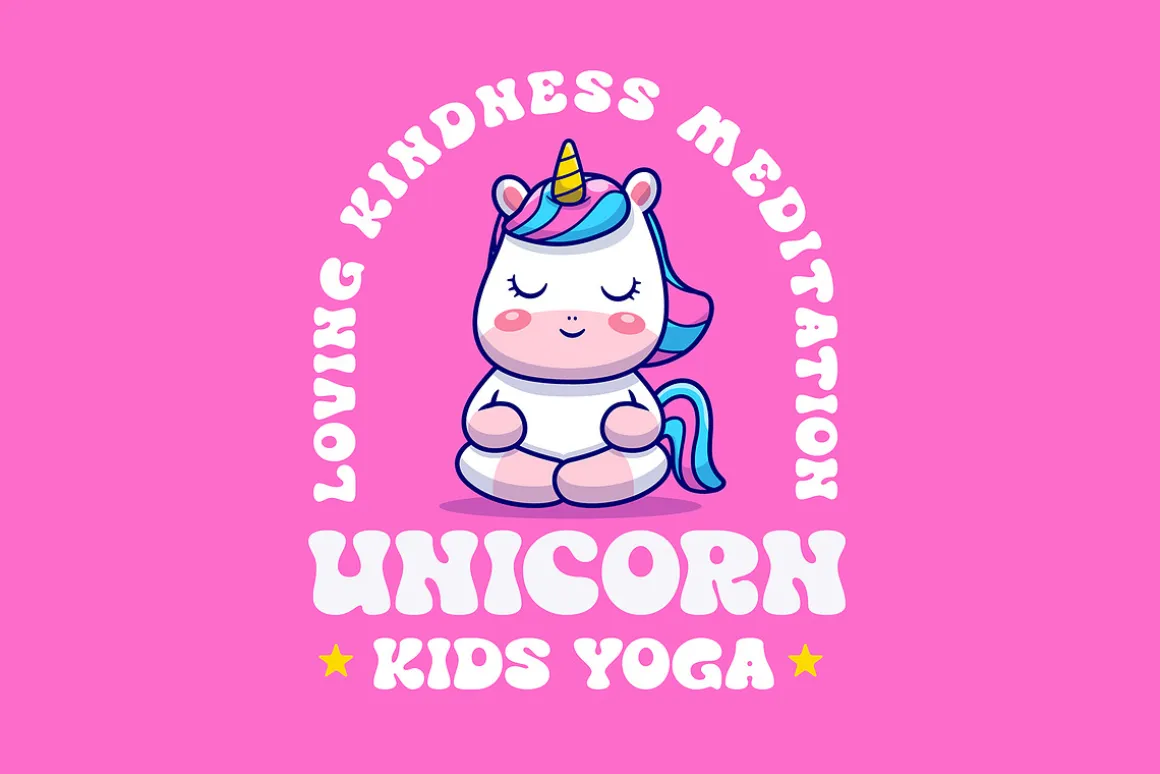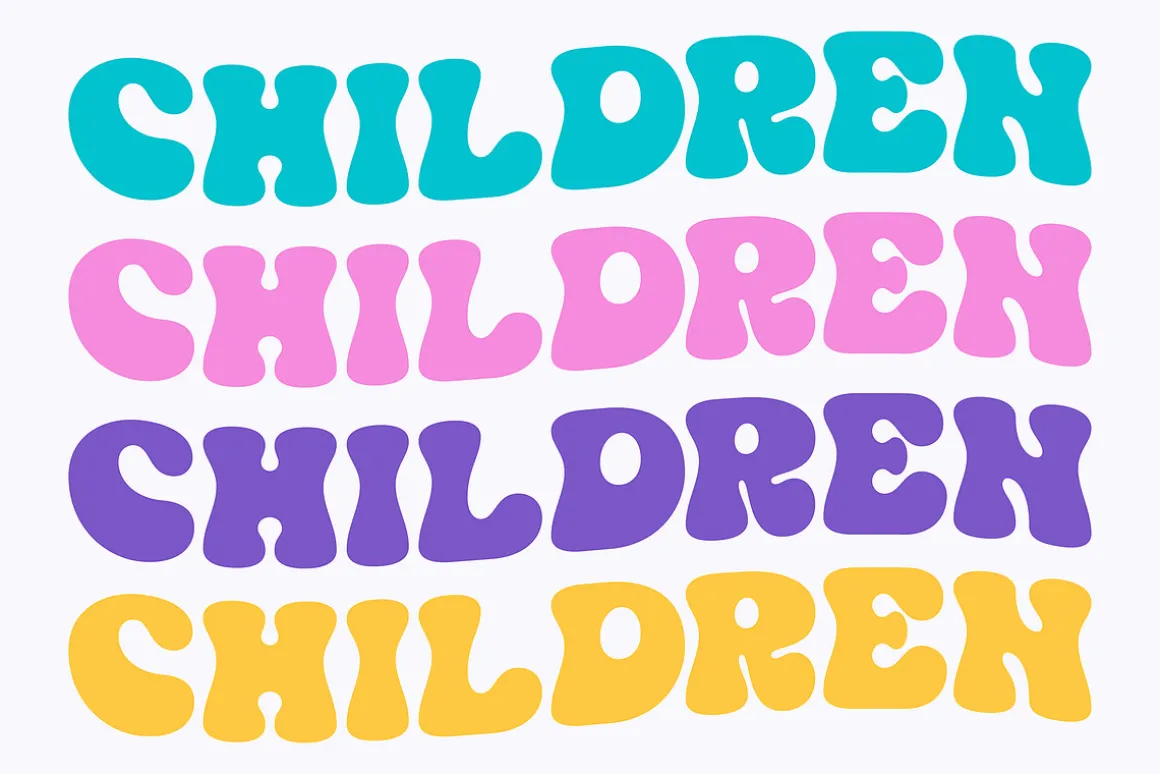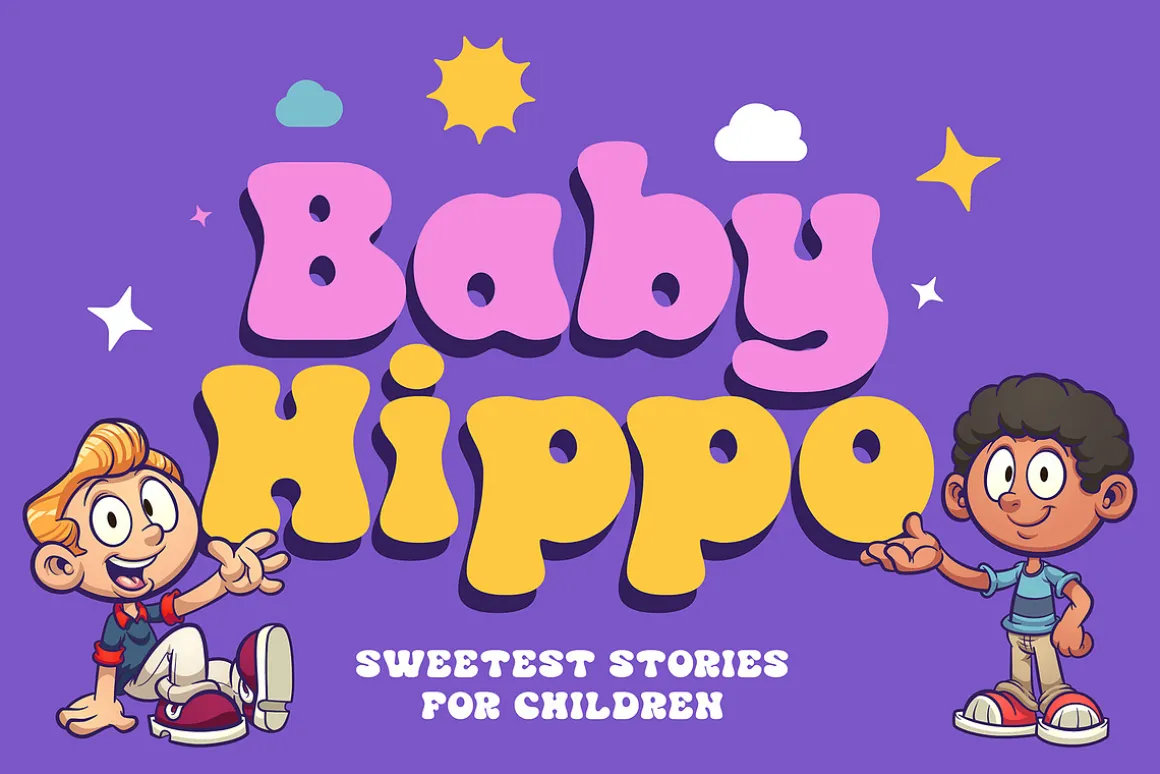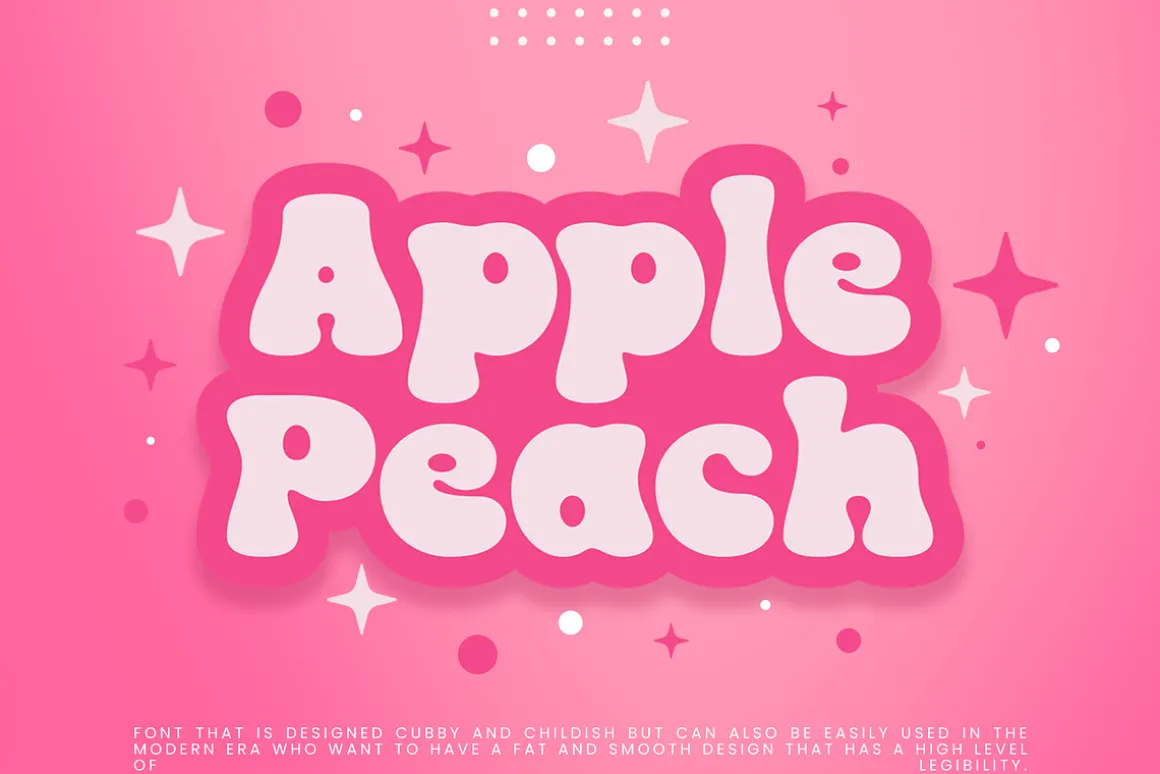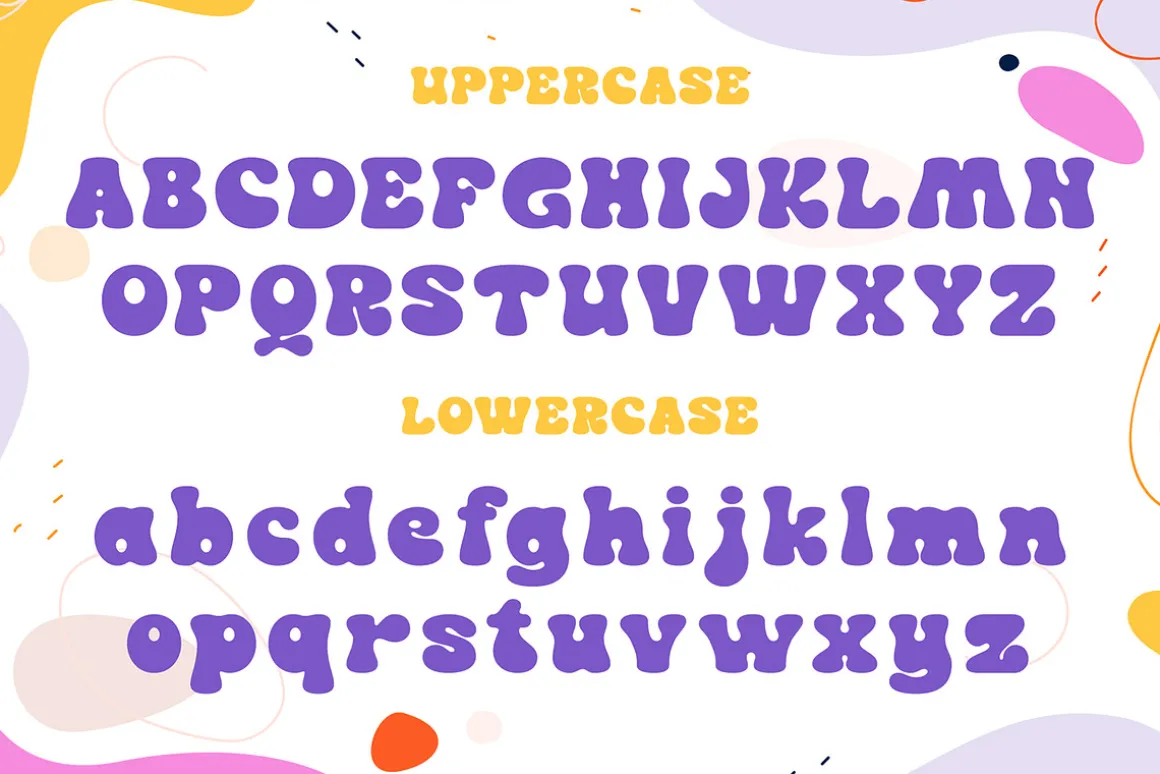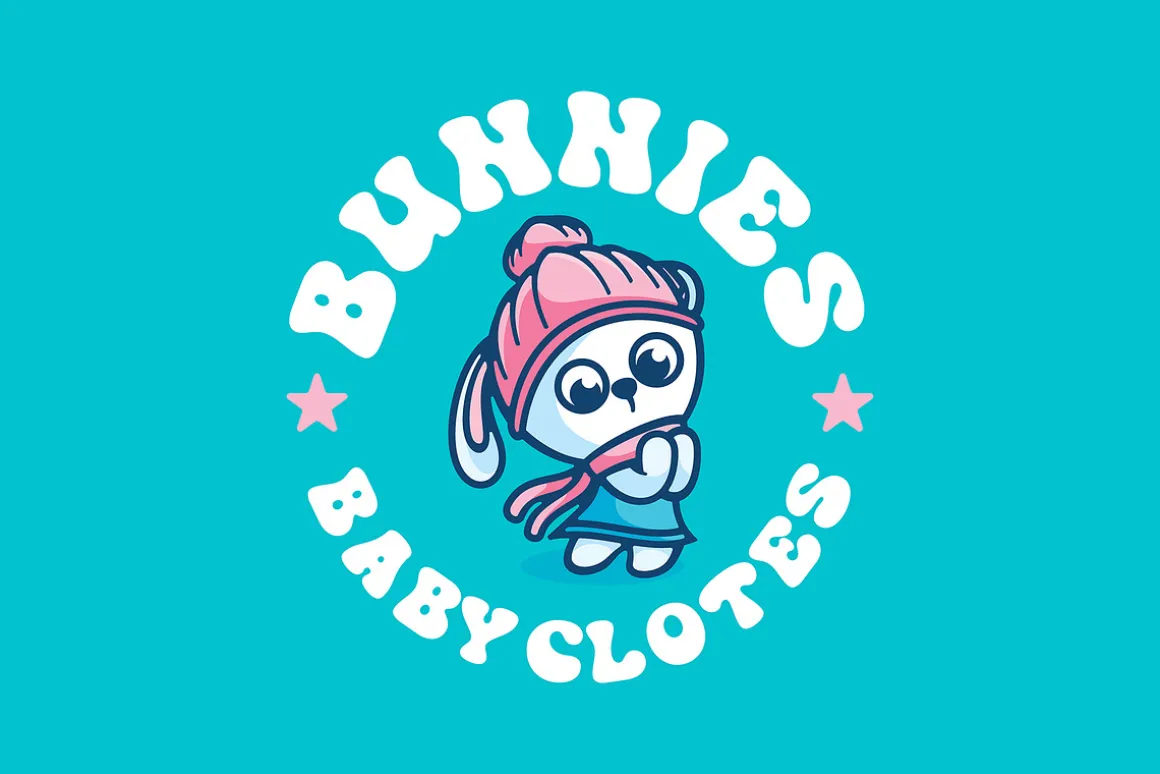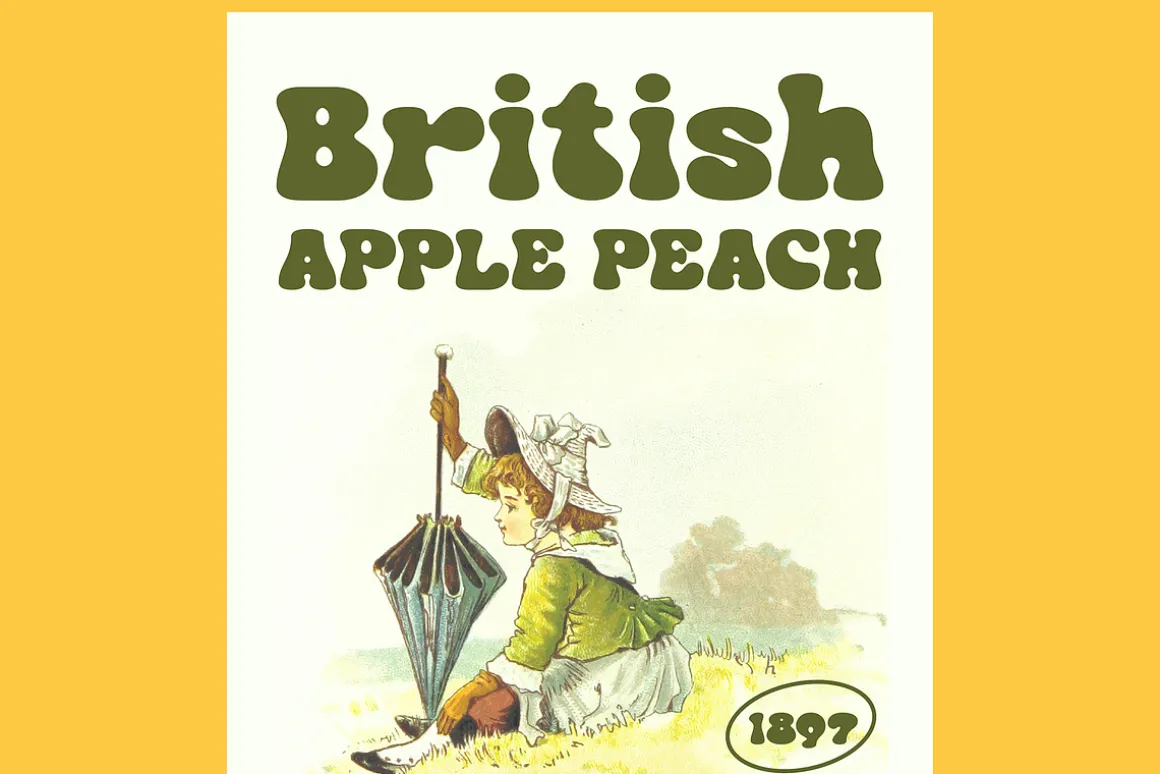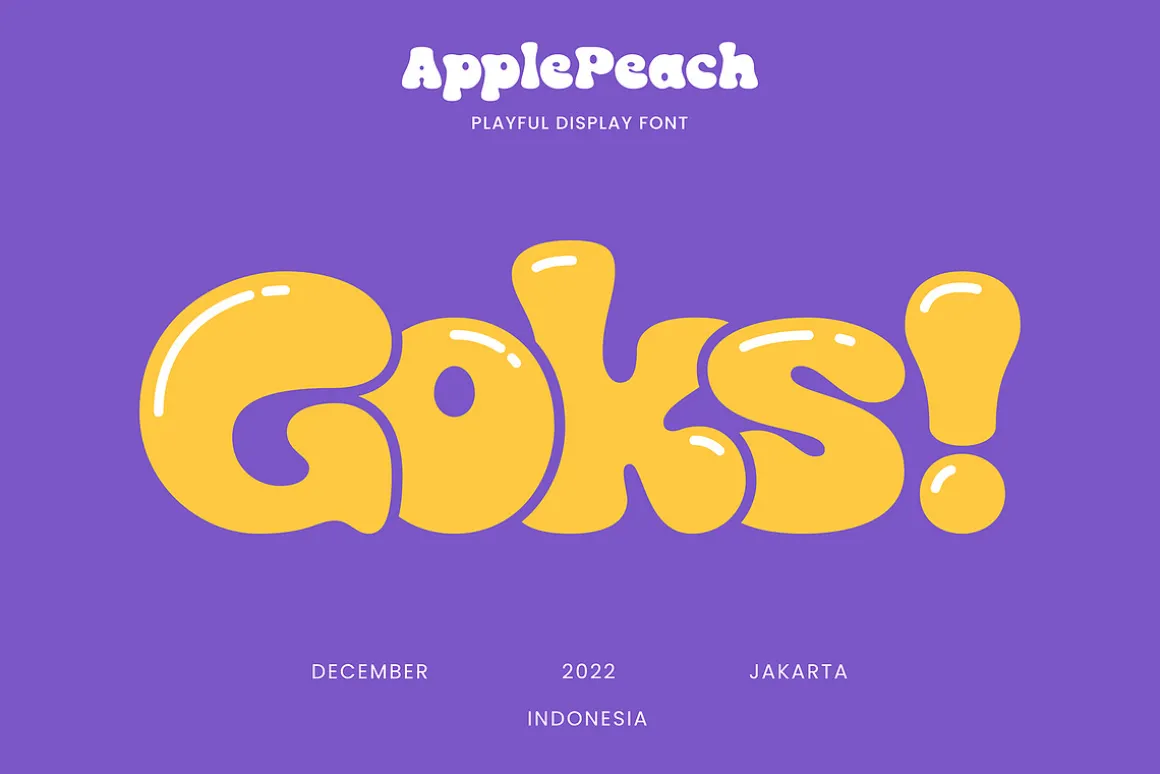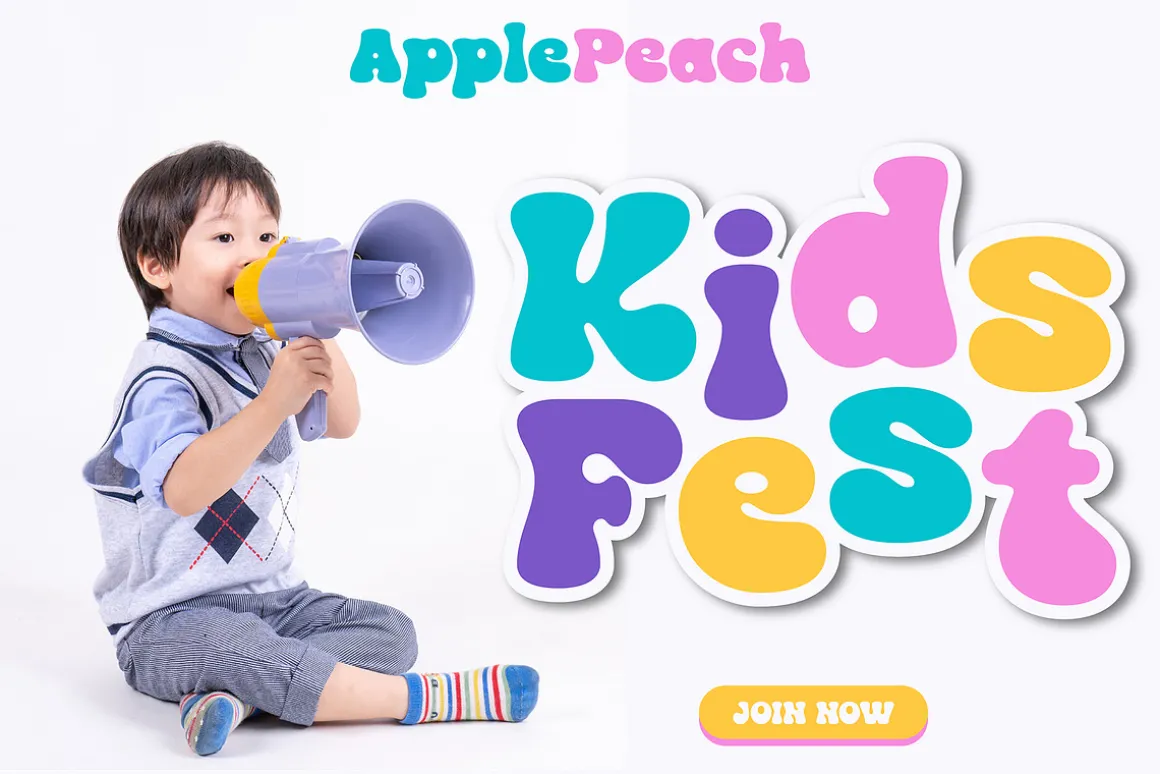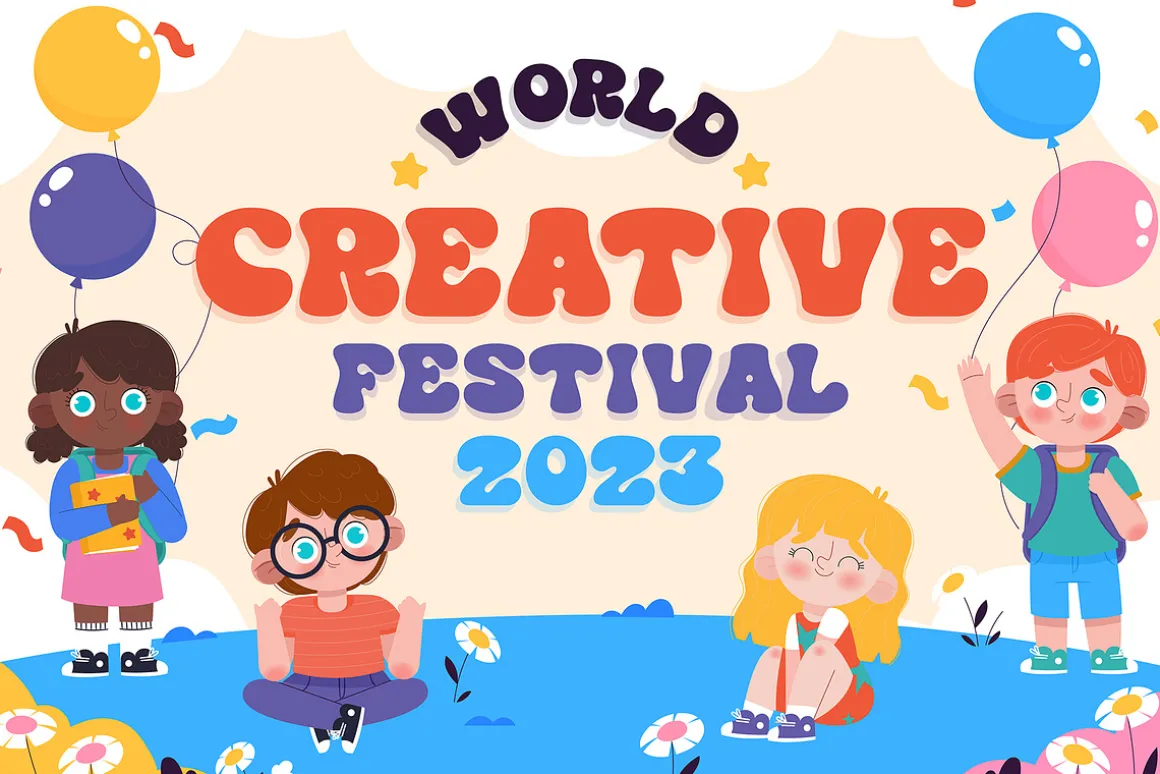
Apple Peach is a font that is designed cubby and childish but can also be easily used in the modern era who want to have a fat and smooth design that has a high level of legibility. The advantage of this font is that it can be used for various product designs according to your needs.
- Uppercase & Lowercase
- Numbers & Punctuation
- Multilingual Support